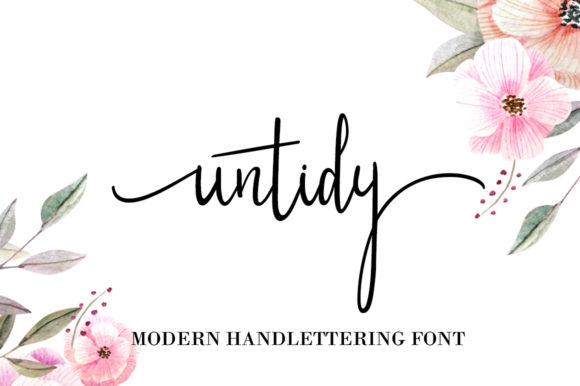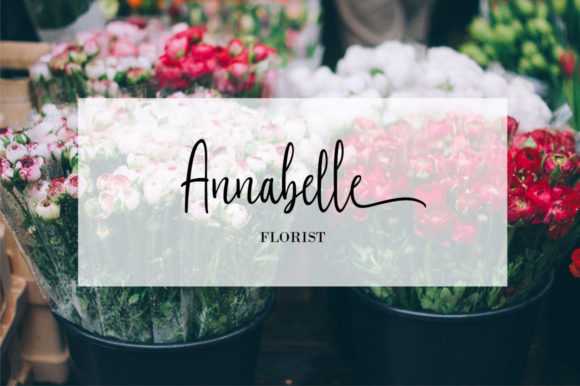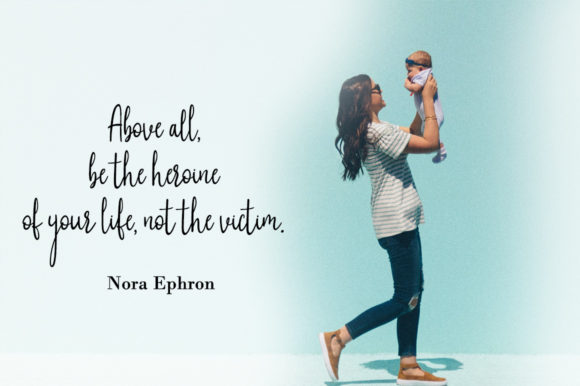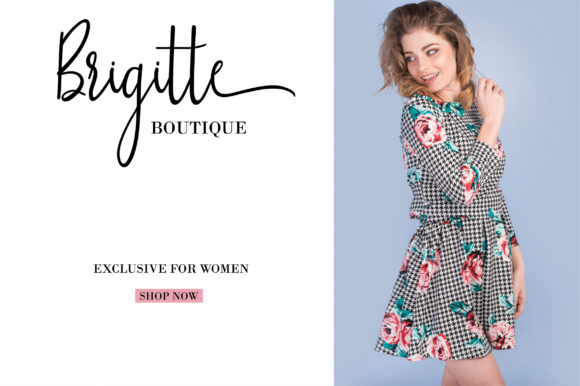
Untidy Font
About Untidy Font
Untidy is a modern handwritten font with a brush style. It features an incredibly classic style, while still keeping a friendly feel. Untidy is the perfect font for making original and outstanding designs.